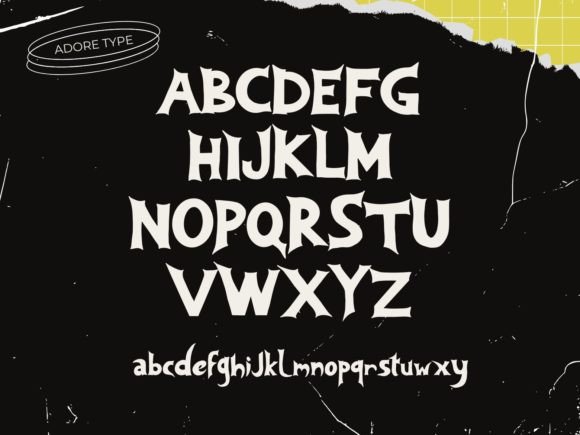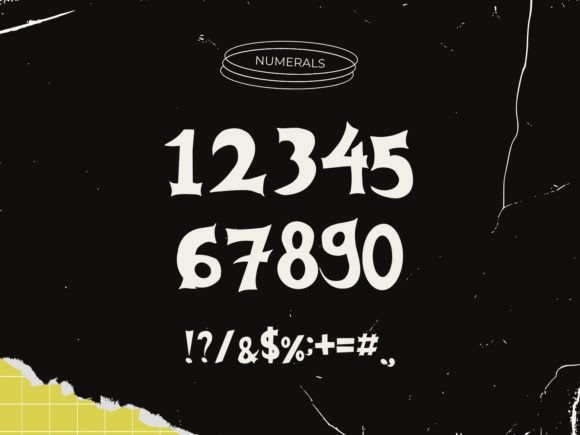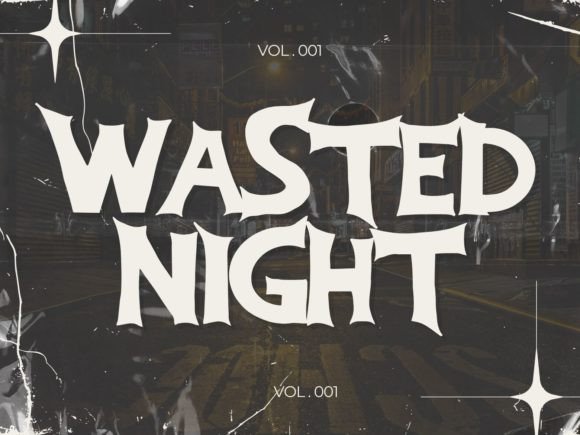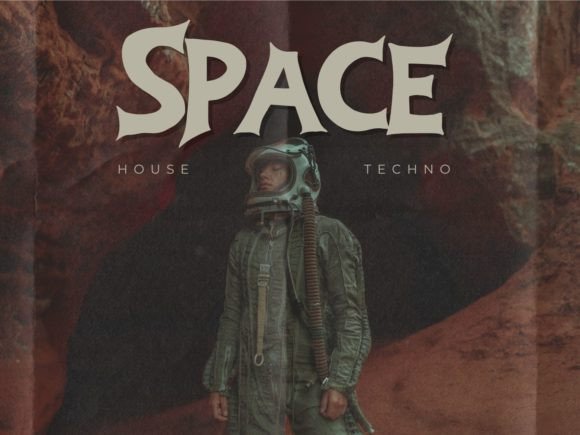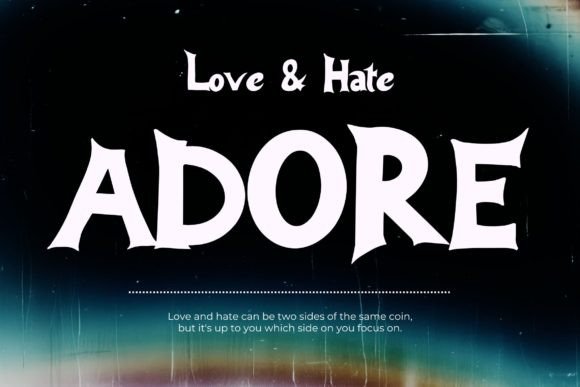
The Unforgettable Adore Font: A Designer’s New Best Friend
I still remember the project that led me to discover the Adore font. I was working on a bold poster design for a local gym, and I needed a font that would scream “Get moving!” 🤔. After hours of browsing through font libraries, I stumbled upon Adore, and it was love at first sight ✨. Its thick, powerful strokes and striking letterforms instantly conveyed the strength and confidence the gym wanted to project. In this article, I’ll share my experience with Adore, its features, and how to make the most of it in your designs.
An Honest Review of Adore Font
What I Love About Adore ✨
- ✅ Bold and Impactful: Adore is a bulky and fun display font that demands attention and makes a statement.
- ✅ Perfect for Headlines and Posters: Its thick strokes and striking letterforms make it ideal for headlines, posters, and branding.
- ✅ Conveys Strength and Confidence: Adore’s modern and edgy feel conveys a sense of strength, confidence, and modernity.
- ✅ Easy to Read: Despite its boldness, Adore is surprisingly easy to read, even at smaller sizes.
While Adore is an amazing font, it’s not perfect. Here are a few things to keep in mind:
- ⚠️ Limited Use Cases: Adore is a display font, so it’s best used for headlines and titles. It might not be the best choice for body text.
- ⚠️ May Not Be Suitable for Small Sizes: Adore’s boldness can become overwhelming at very small sizes. Use it at larger sizes for maximum impact.
The Designer Inspiration Behind Adore
While the origins of Adore are unclear, it’s likely that the designer was inspired by modern typography trends and the need for bold, attention-grabbing fonts. The result is a font that’s both fun and impactful, perfect for designers looking to make a statement.
A: Adore font is best used for headlines, posters, and branding that require a bold and impactful look.
A: While Adore is easy to read, it’s not ideal for body text. Its boldness can become overwhelming at smaller sizes.